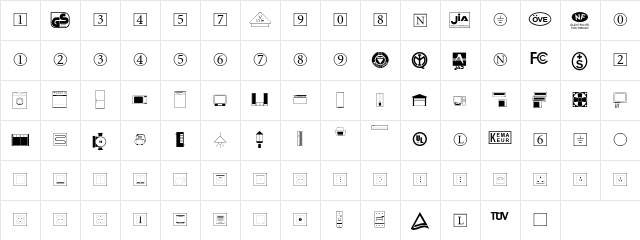
EL-Symbols OTF Regular
| Foundry | Denis A Serikov |
| Designer | Denis A Serikov |
Design Context for EL-Symbols OTF Typeface
EL-Symbols OTF is a composed and adaptable typeface that performs quietly and consistently across a wide range of design contexts.